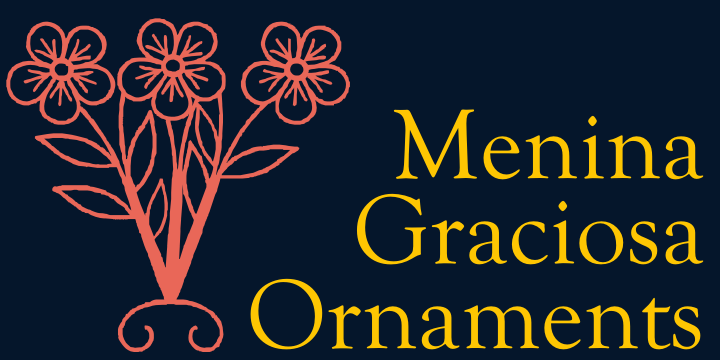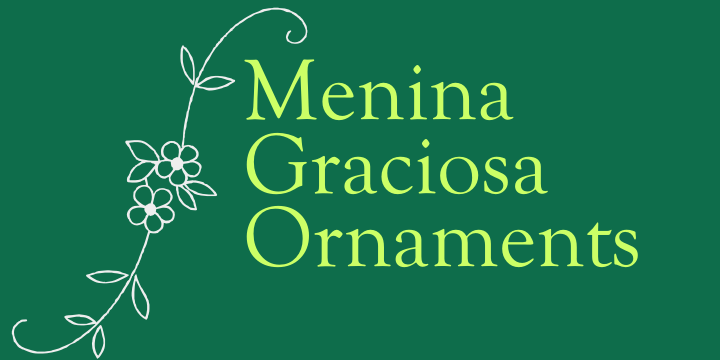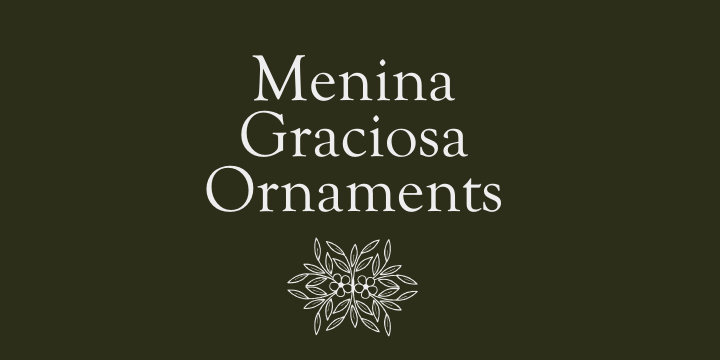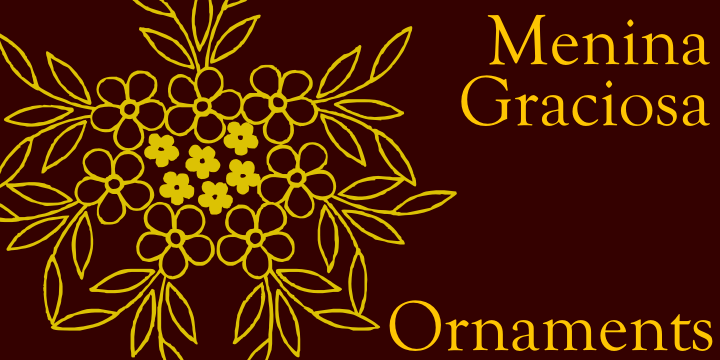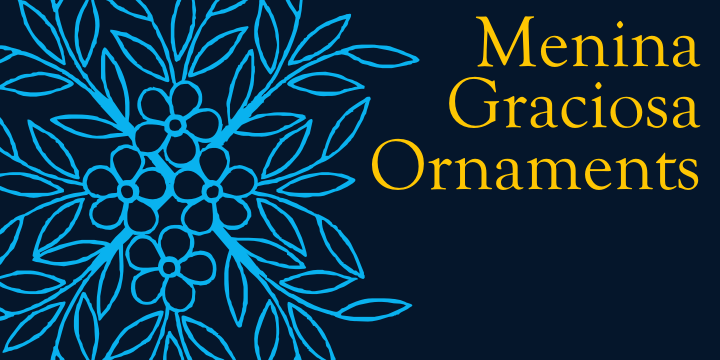
Menina Graciosa Ornaments
Font Family by Intellecta Design
Meninas are the new comprehensive collection of innovative craft alphabets and ornaments researched in rare cross-stitch booklets from 1850 to 1930. This alphabet and ornaments series was entirely designed by hand, without use of auto-tracing, by Iza W, from Intellecta Design. Keep your eyes wide-open, because we will launch more amazing alphabets in this collection. ?Menina? means ?Girl? in Portuguese. Menina Graciosa is a Graceful Girl. See too her sister fonts: Menina Formosa, Menina Carinhosa, Menina Poderosa Ornaments and Menina Espinhosa